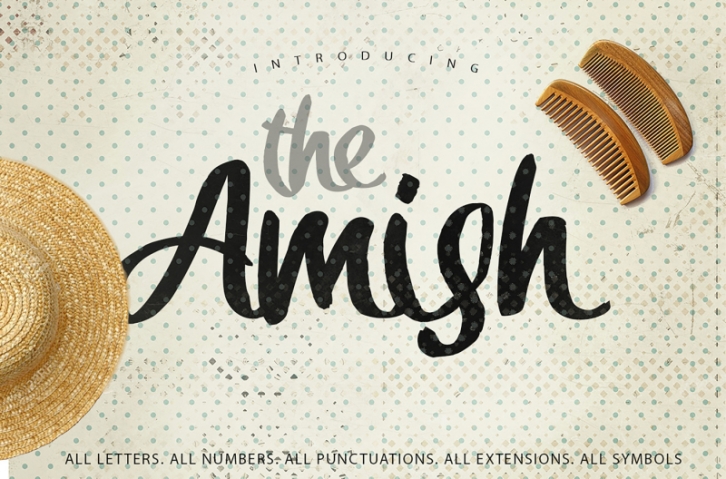
The Amish Typeface FONT Download
The Amish Typeface Font Download
Amish is a unique roundhand font to use with the tecnologie. Be free to take a personality on your designs. All punctuations, extensions, lowercase and uppercase, numbers and webfont.